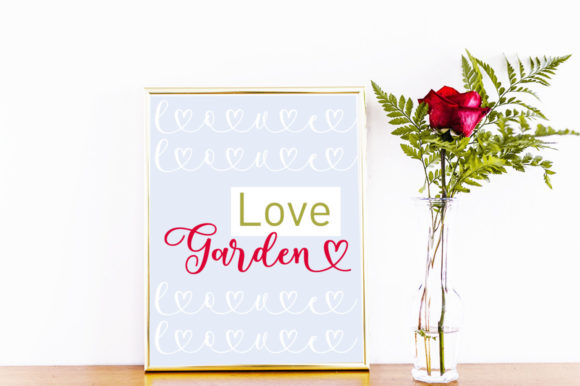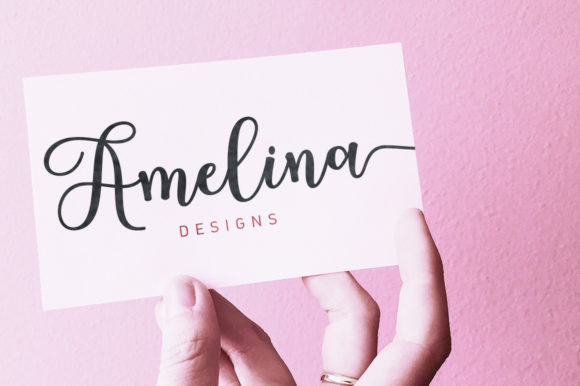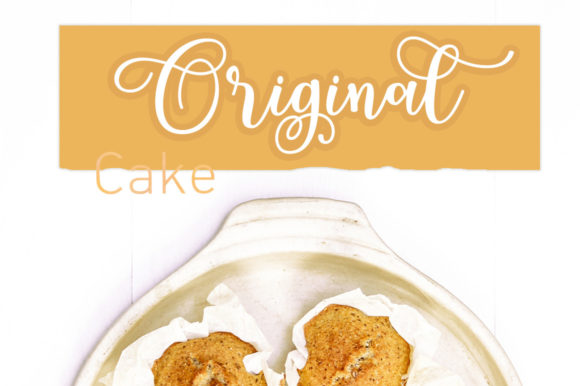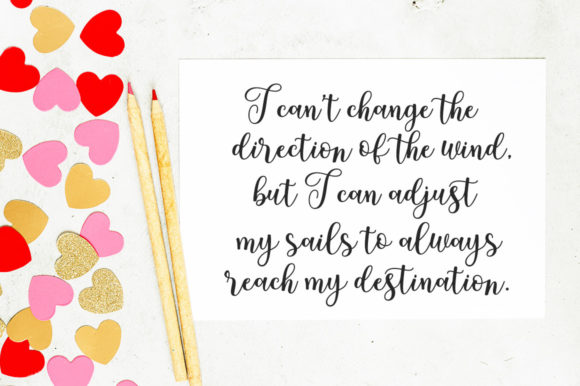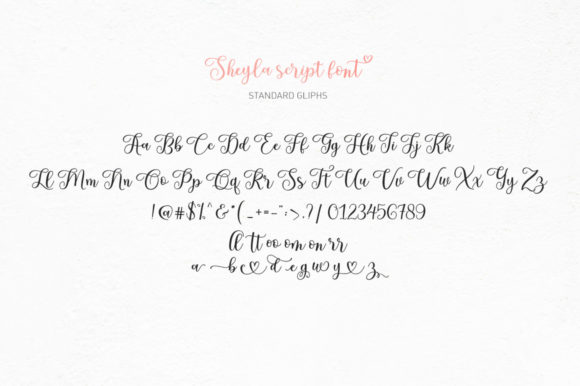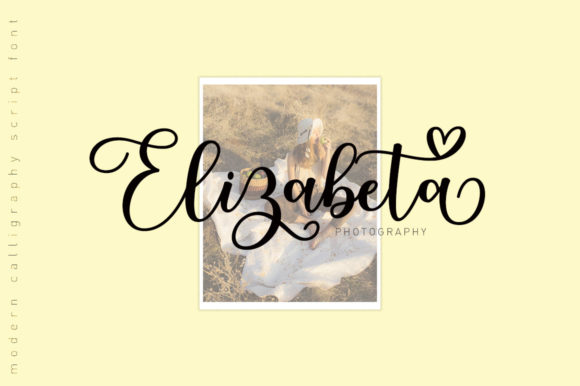
Introduction to Sheyla Script Font
Have you ever been working on a creative project, pouring your heart and soul into it, and just as you’re about to finalize the design, you feel like something’s missing? That’s when you need the perfect finishing touch – a beautiful, high-quality font that elevates your entire project. For designers, finding the right font can be a game-changer, and that’s exactly what the Sheyla Script Font offers.
This lovely script font features charming, playful characters that seem to dance along the baseline, adding a touch of whimsy and personality to any design. With its PUA encoded design, you can access all glyphs and swashes with ease, making it a valuable resource for any designer looking to add a unique touch to their creative project.
Key Features of Sheyla Script Font
- High-quality, elegant script font ideal for creative projects that require a touch of sophistication.
- Includes 300 glyphs, making it suitable for both short and long text-based content.
- Perfect for use in wedding invitations, branding materials, and other creative projects where a beautiful script font is required.
Honest Review: Sheyla Script Font
I recently had the chance to work with the Sheyla Script Font, and I must say it’s been a game-changer for my design projects. ✨ The high quality of this font is evident in its elegant, cursive script that adds a touch of sophistication to any creative project.
One of the standout features of the Sheyla Script Font is its versatility. It’s perfect for a variety of design applications, from branding and marketing materials to wedding invitations and social media graphics. Plus, it’s free to download, making it an excellent design resource for designers on a budget.
- High-quality, elegant script design
- Perfect for a variety of design applications
- Only available in a single weight, which may limit its use in certain designs
- Not ideal for large blocks of text, as it can be difficult to read
Overall, I’m thoroughly impressed with the Sheyla Script Font. It’s a great addition to any designer’s toolkit and is sure to elevate any creative project. With its high-quality design and versatility, it’s a must-have design resource for any designer looking to add a touch of elegance to their work.
Tips for Getting the Most Out of Sheyla Script Font
To get the most out of the Sheyla Script Font, use it in combination with other design elements to create a visually appealing design. Experiment with different font sizes, colors, and alignments to achieve the desired effect.
The Sheyla Script Font is ideal for various design projects, including wedding invitations, birthday cards, and social media graphics. Its high-quality design and transparent background make it a versatile design resource for any creative project.